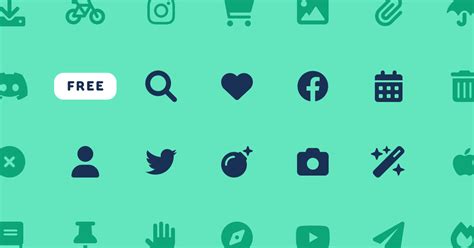
IZoom Meeting Icons: Font Awesome Integration
iZoom Meeting Icons: Font Awesome Integration
Hey guys, let’s dive into something super cool and useful for all you web developers and designers out there – integrating iZoom meeting icons with Font Awesome! This combo is a game-changer when it comes to creating slick, professional interfaces for your applications or websites. We’ll explore how to get these icons looking sharp, improving the user experience, and making your projects stand out. So, buckle up, and let’s get started. We are going to make your website more interactive by adding these icons, so users can easily see what to click and engage with the content easily. Let’s make it more friendly! This is what your users would like to see, no boring websites, let’s make it alive.
Why Use iZoom Meeting Icons and Font Awesome?
Okay, so why should you care about iZoom meeting icons and Font Awesome? Well, first off, Font Awesome is a massive library of icons that’s been a staple in the design world for ages. It offers a vast collection of vector icons that are super scalable, meaning they look great on any screen size. No more blurry icons! Plus, it’s incredibly easy to integrate into your projects using CSS. Now, when you add iZoom meeting icons to the mix, you’re specifically targeting the needs of users that use zoom meetings. These icons can represent meetings, schedules, participants, and other features related to meeting software.
Optimized User Experience: Integrating the right icons significantly improves the user experience. Clear, recognizable icons allow users to quickly understand the functions on your site. For example, a video call icon instantly signals the opportunity to join a meeting. It saves users time and effort trying to figure out what each button does.
Visual Consistency and Professionalism: Using a consistent set of icons, like those provided by Font Awesome, gives your website a polished, professional look. This consistency helps build trust with your users and enhances your brand’s reputation.
SEO Benefits: The use of relevant icons, like meeting icons, is useful for SEO. They make content easier to scan and understand, which search engines like. Plus, it can potentially boost your click-through rates since icons make your content more visually appealing.
Getting Started: Integrating Font Awesome
Alright, let’s get into the nitty-gritty of how to get this set up. Here are the steps:
Find the Right Icons: Browse through the Font Awesome library at fontawesome.com. Search for relevant icons for your iZoom meeting needs. You might look for icons like a video camera, calendar, or a user group.
Implement the Icons in Your HTML: Use the
<i>tag with the appropriate classes. For example, if you want a video camera icon, and the class isfa-video, your HTML will look like this:<i class="fas fa-video"></i>The
Customize with CSS: You can style the icons with CSS. Change their size, color, or add hover effects. For example:
.fa-video { font-size: 24px; color: #007bff; /* Blue */ } .fa-video:hover { color: #0056b3; /* Darker Blue */ }
Finding iZoom Meeting Icons
This is where things get a bit more interesting. You might not find official iZoom icons directly within Font Awesome, as Font Awesome typically focuses on generic icons. However, here’s how to handle this and still make it work:
Option 1: Search Font Awesome for Similar Icons.
Start by searching Font Awesome for icons that represent zoom meeting functions. For example, you might use a video camera icon to represent a meeting start, a calendar icon for scheduling, and a user icon for participants. This way, you still benefit from the style and integration ease of Font Awesome.
Option 2: Create Custom Icons or Find Third-Party Icons.
If you want more specific iZoom icons, your options are:
- Create Your Own: If you have design skills, you can create your custom icons using vector graphics software like Adobe Illustrator or Figma. Export them as SVG files, which are scalable.
Option 3: Combine Font Awesome with Custom Icons:
Use Font Awesome for general icons and your custom or third-party icons where you need specific iZoom symbols. This gives you the best of both worlds. For example, use a Font Awesome calendar icon for general scheduling, but use a custom iZoom logo for a